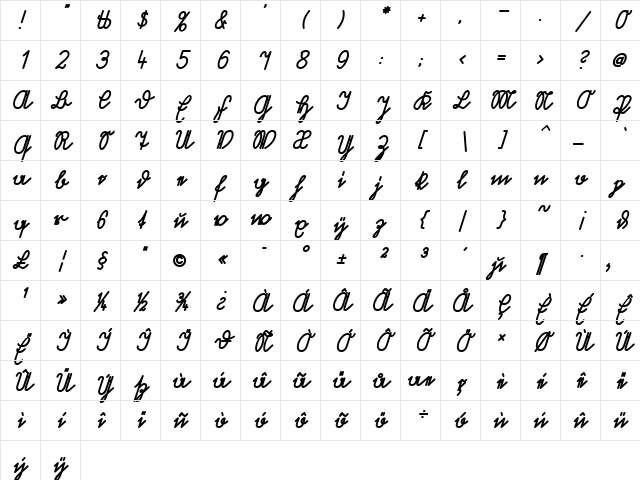
Volk Redis Bold Italic
Foundry: Peter Wiegel
Designer: Peter Wiegel
Complete Volk Redis Bold Italic glyph index. Displaying only characters natively supported by Volk Redis Bold Italic font.
Design Context for Volk Redis
Volk Redis is a composed and adaptable typeface that performs quietly and consistently across a wide range of design contexts. The slanted form adds forward momentum and visual energy. Its bold stroke weight gives it real presence on the page.